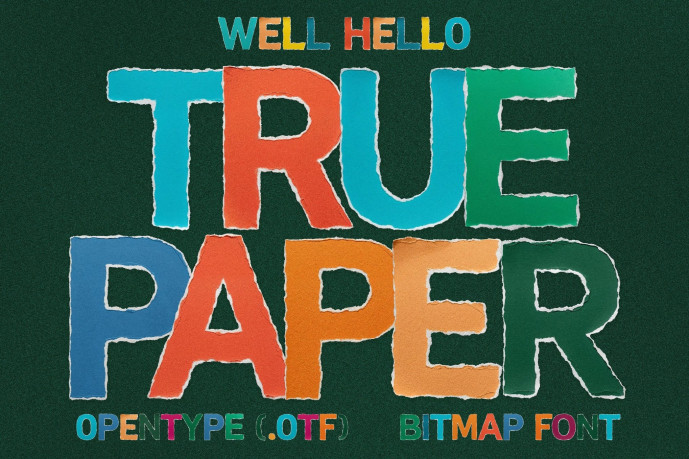
True Paper — Torn Paper Display Font
True Paper — Torn Paper Display Font is a bold, handcrafted display font made from individually torn paper letters, giving every character authentic texture, depth, and personality.
Whether you’re designing for kids, crafting eye-catching posters, or creating fun digital content, this font adds a warm, tactile, handmade feel that stands out instantly.
Perfect for designers, teachers, crafters, scrapbookers, and anyone who loves a colorful arts-and-crafts vibe!